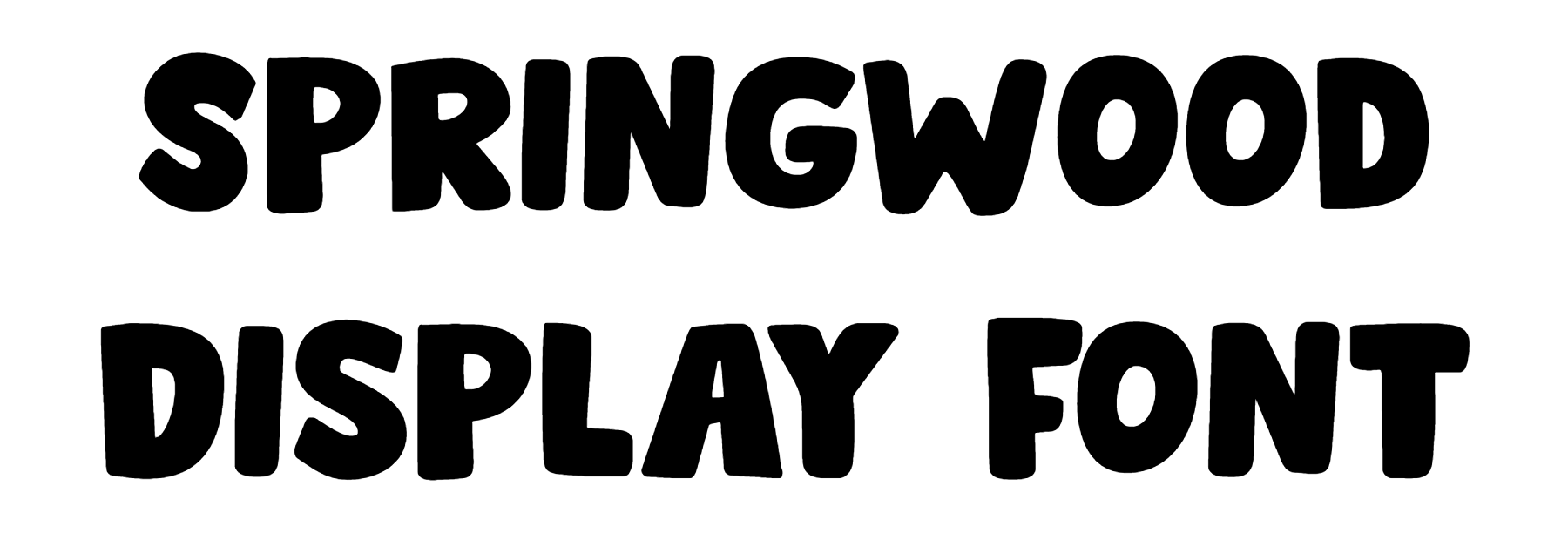
Springwood Display
Springwood Display is a comic font designed by David Kerkhoff (2019). Its bouncy, rounded letters feel playful, like lettering from a cartoon or a comic book. It's a free download, and you can try it with your own text in the preview above first.
- Designer: David Kerkhoff
- Category: Comic font
- Glyphs: 133
- Characters: A–Z, a–z, 8 digits and basic punctuation
- Languages: English, French, German, Portuguese and Italian
Springwood Display has the full alphabet in upper and lowercase. Only 8 of the ten numbers are included, so double-check dates and prices before you print anything. Common punctuation such as !, ?, @ and $ is included as well. It also has the accented letters you need for French, German, Portuguese and Italian.
Springwood Display is a natural fit for comic strips, speech bubbles and playful headings. Its lowercase letters are tall compared to the capitals, which keeps it readable at smaller sizes. Cartoon fonts are great for short, fun lines. If you place it over a busy photo, add a thick outline or a drop shadow so it stays readable.
Yes. Springwood Display includes the accented letters needed for French, German, Portuguese and Italian, so it works for more than just English.
Only 8 of the ten digits. Check dates, prices and phone numbers in the preview above, and use a second font for any missing ones.